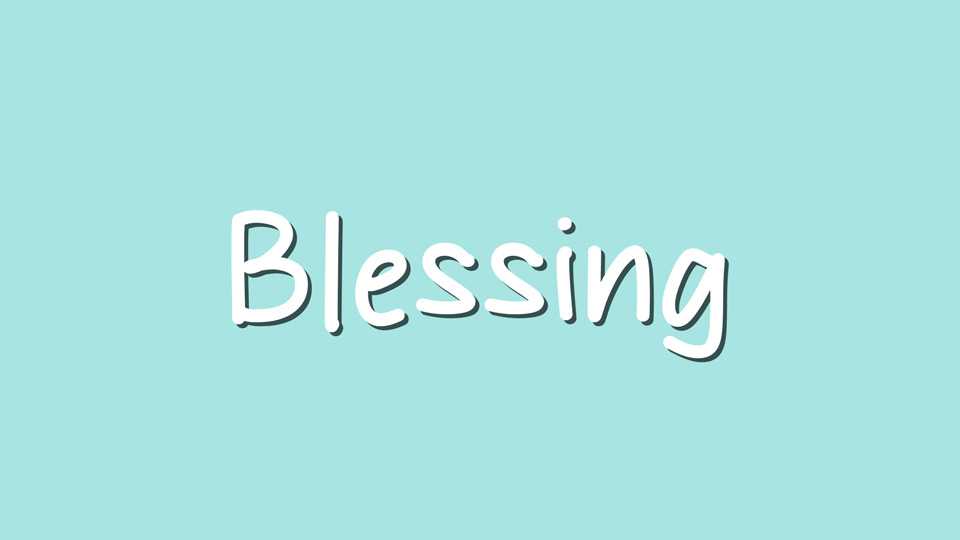
Download Blessing font, the typeface that effortlessly blends the informality of hand-drawn comic lettering with a clear, legible style. Designed with simple strokes that create an easygoing, handwritten look, making it perfect for designs that require approachability and readability.